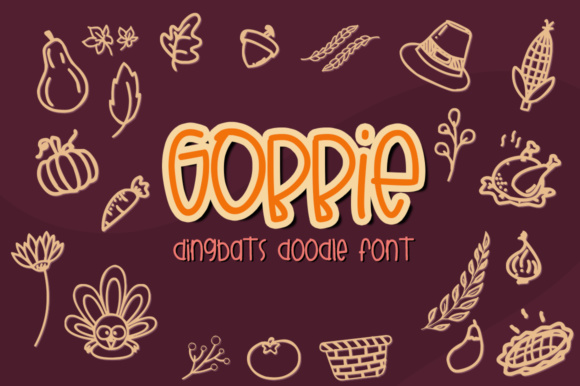
The Ultimate Thanksgiving Design Hack: Meet the Gobbie Font
Ah, the joys of designing for the holiday season! 🎉 I still remember the year I had to create a Thanksgiving-themed project on a tight deadline. I was scrolling through font after font, searching for that perfect blend of playful and warm. And then, I stumbled upon the Gobbie Font. It was love at first sight! ❤️ This full-of-thanksgiving-theme doodles font has been a game-changer for my designs, and I’m excited to share its awesomeness with you.
So, what makes the Gobbie Font so special? 🤔 Let’s dive into the good stuff and a few minor limitations.
- ✨ Thanksgiving-themed doodles: This font is packed with adorable doodles that scream Thanksgiving. From turkeys to pumpkins, you’ll find the perfect elements to make your designs pop.
- ✅ Mix-and-match versatility: Gobbie Font plays nicely with other fonts and designs, making it a fantastic addition to your creative arsenal.
- 🎉 Easy to use: Whether you’re a design pro or a crafting newbie, this font is a breeze to work with.
A Few Minor Quirks
- ⚠️ Some characters might be a bit tricky to find: Due to the doodle nature of the font, certain characters might be hiding in the glyphs or stylistic alternates. But don’t worry, it’s worth the extra dig.
- 🤔 May require some experimentation: With great power comes great responsibility! You might need to play around with the font to get the perfect combination of doodles and text.
The Story Behind Gobbie Font: A Designer’s Inspiration
Ever wonder how designers come up with amazing fonts like Gobbie Font? While the actual story behind this font might be unknown, let’s imagine a designer who loves Thanksgiving and doodling. They wanted to create a font that captures the warmth and playfulness of the holiday season. And thus, Gobbie Font was born!
Q: What type of designs is Gobbie Font best suited for?
A: Gobbie Font is perfect for Thanksgiving-themed designs, such as greeting cards, invitations, and social media graphics.
And there you have it – a comprehensive guide to the amazing Gobbie Font! 🎉 With its adorable Thanksgiving-themed doodles and mix-and-match versatility, this font is sure to become a favorite in your design arsenal. Happy designing! 🎊